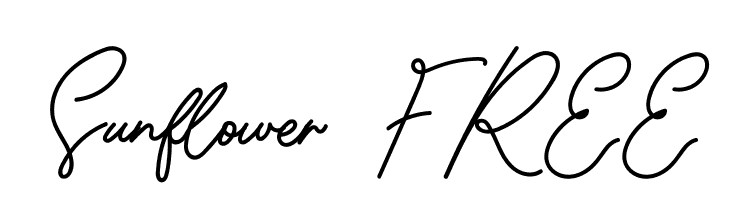
A graceful, cursive font with a handwritten, artistic style.
A modern, elegant script font with flowing, connected characters and decorative uppercase letters.
A lively, flowing script font with elegant curves and a handwritten style.
A flowing, cursive script with elegant loops and a handwritten style.